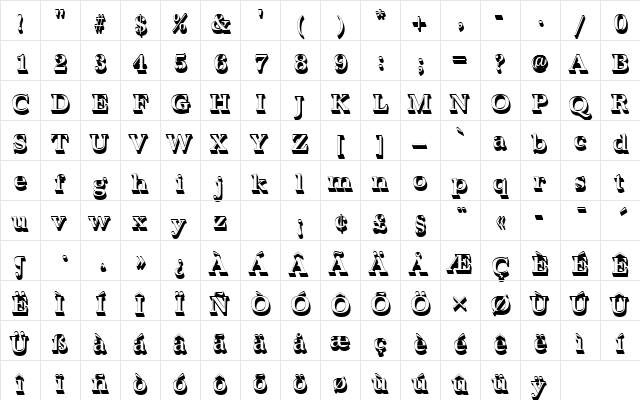
URWAntiquaTMedSh1 Regular
URWAntiquaTMedSh1 takes a measured approach to typography — its balanced proportions and neutral character make it a reliable workhorse for both digital and print work.